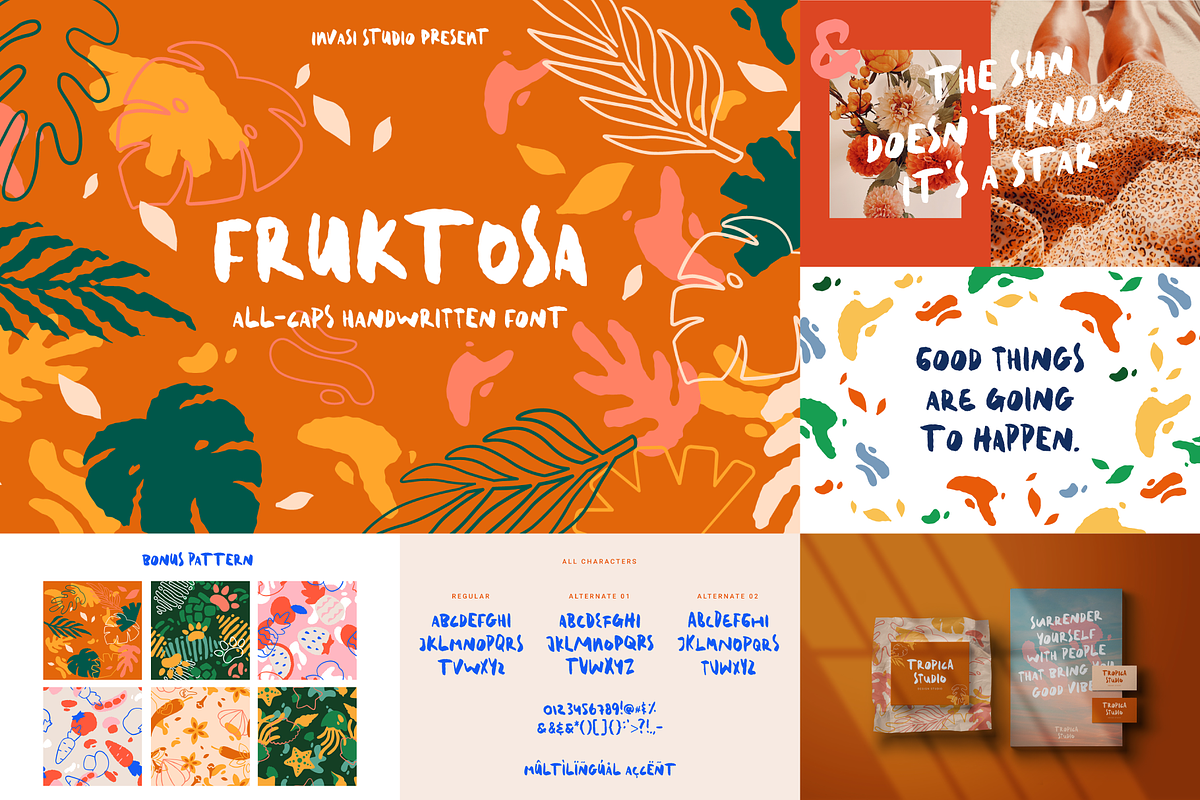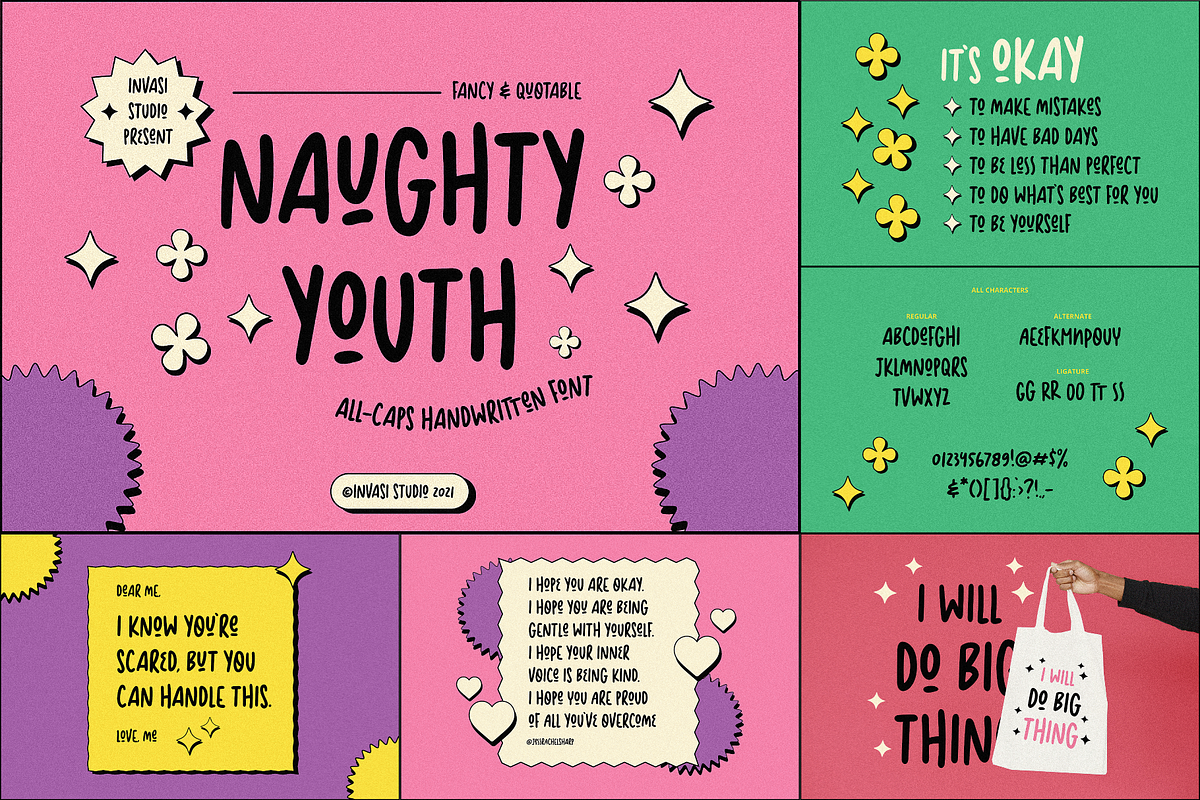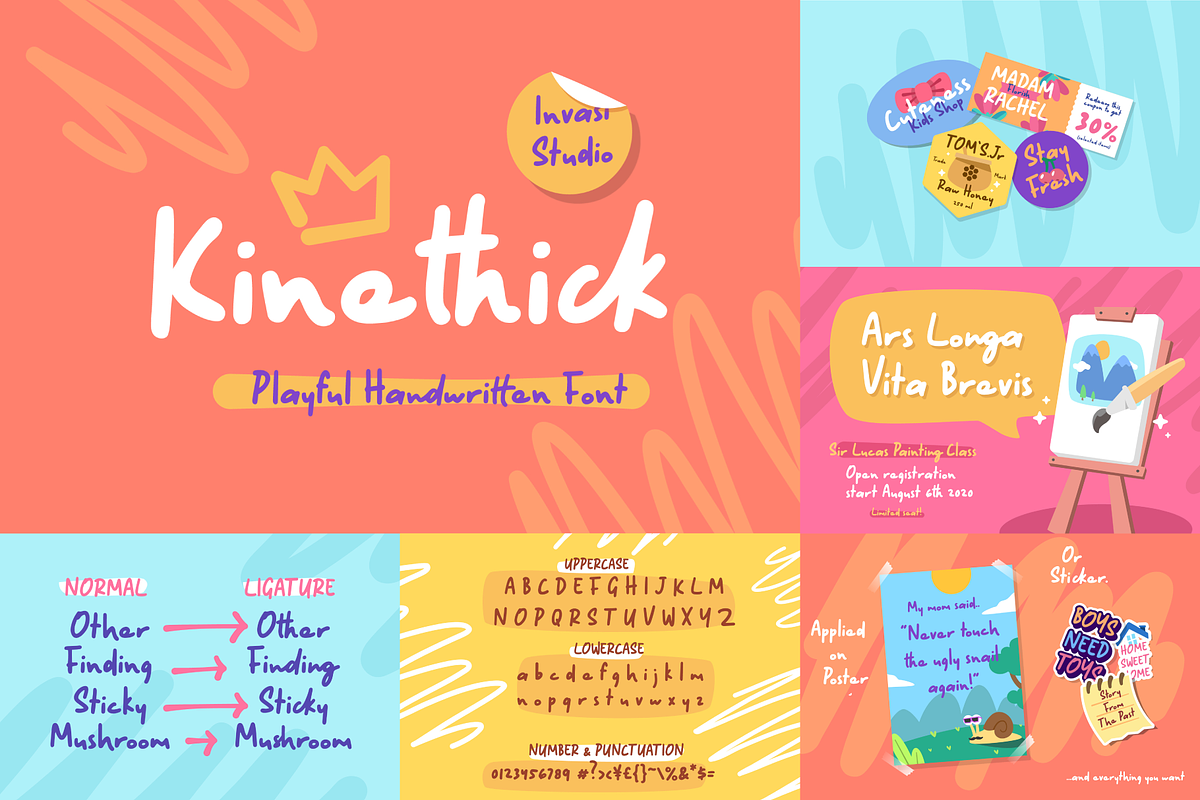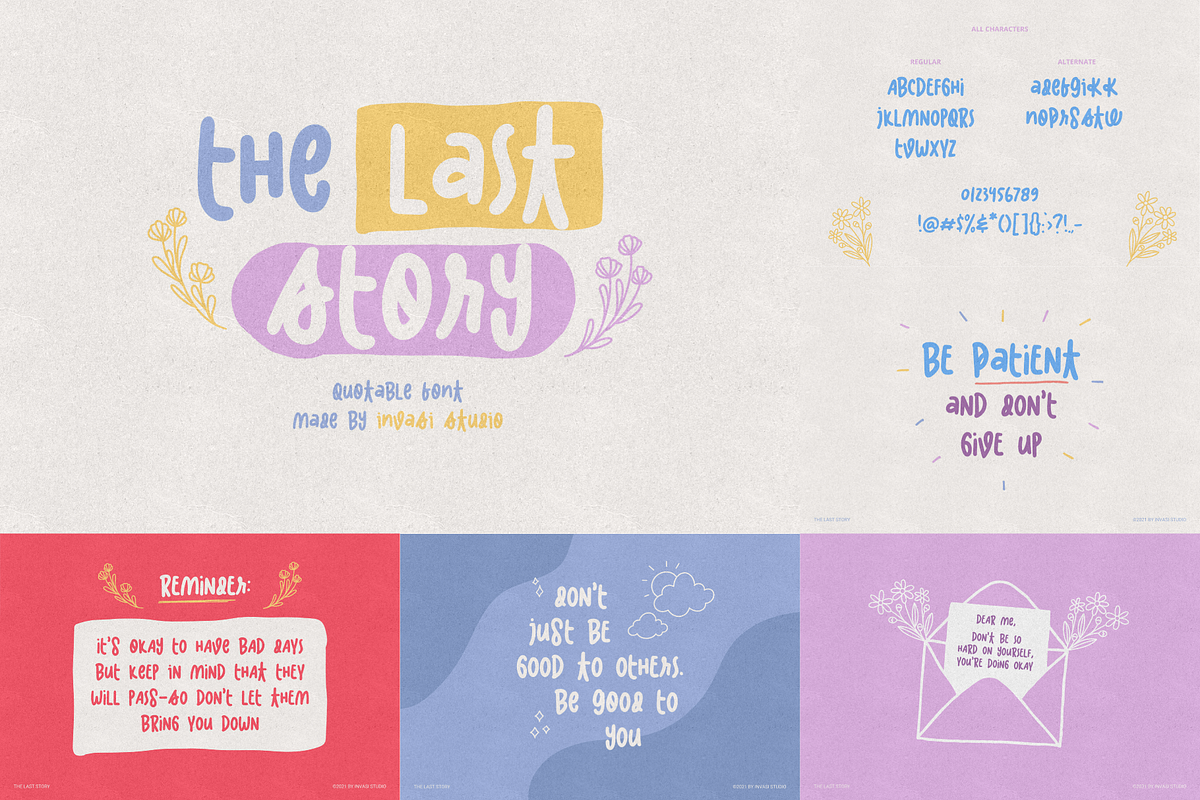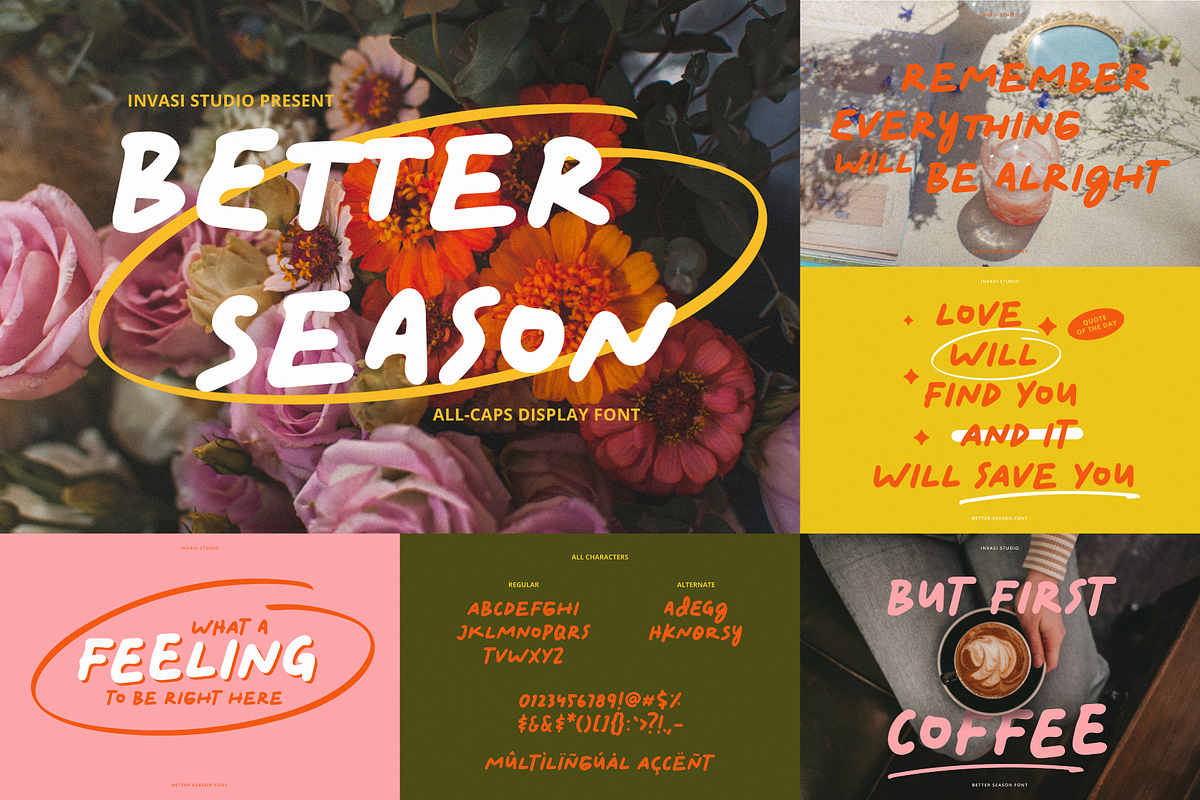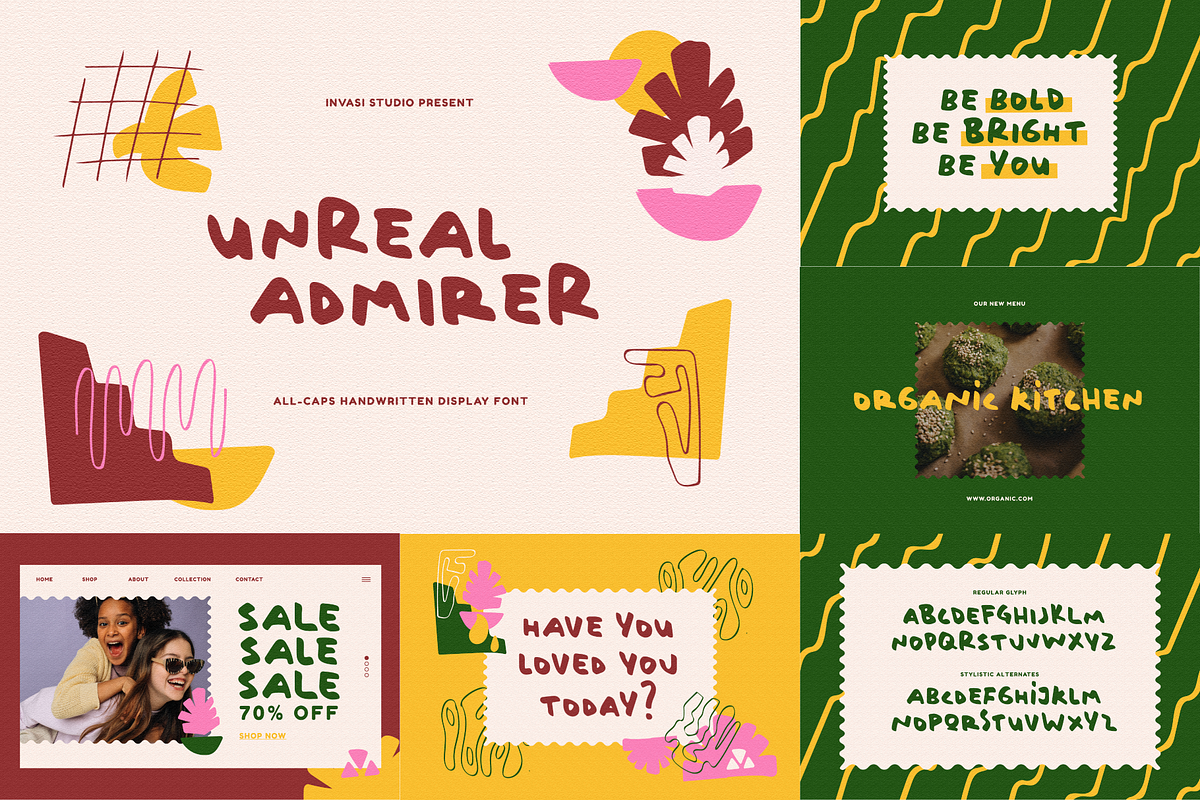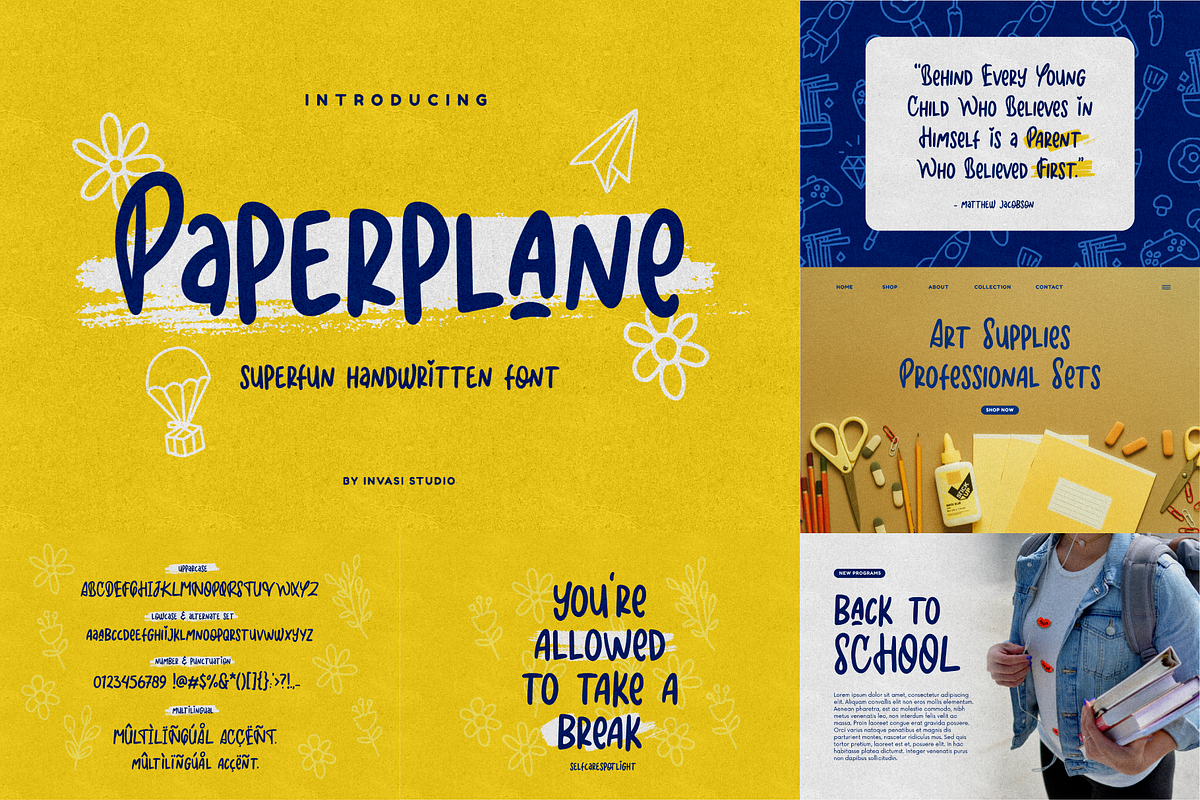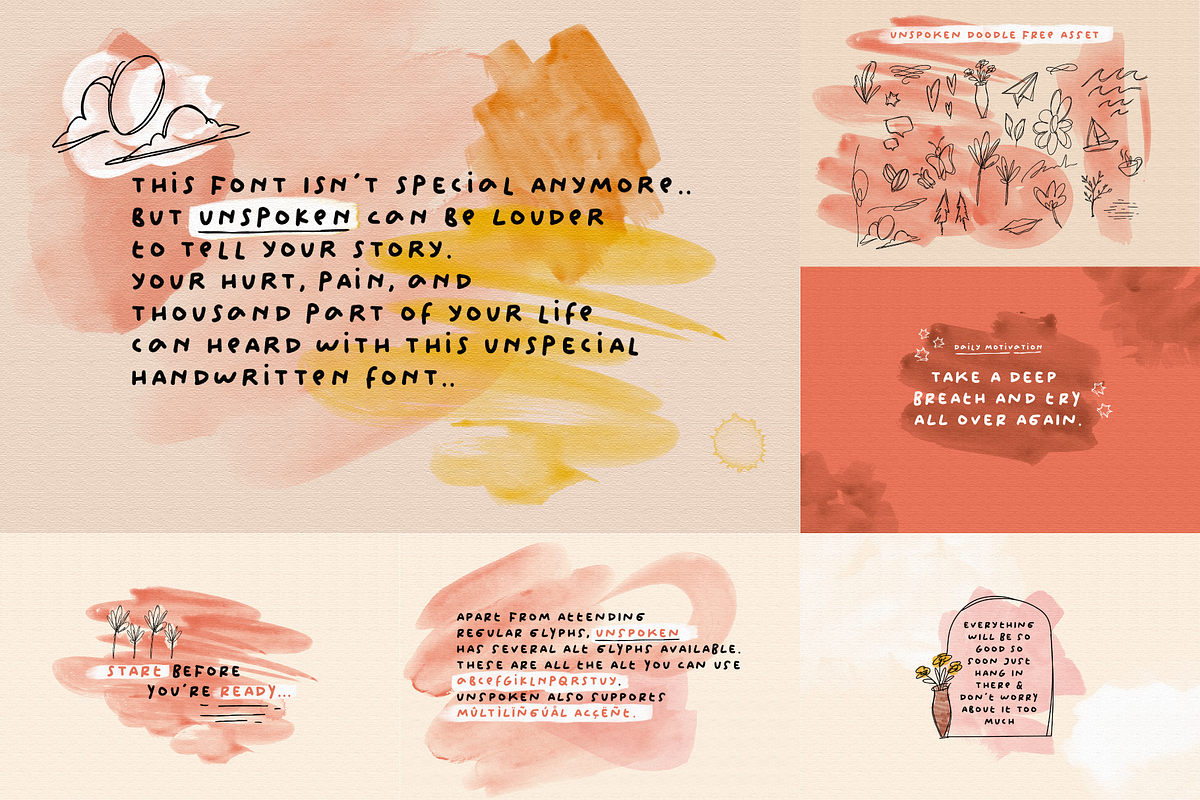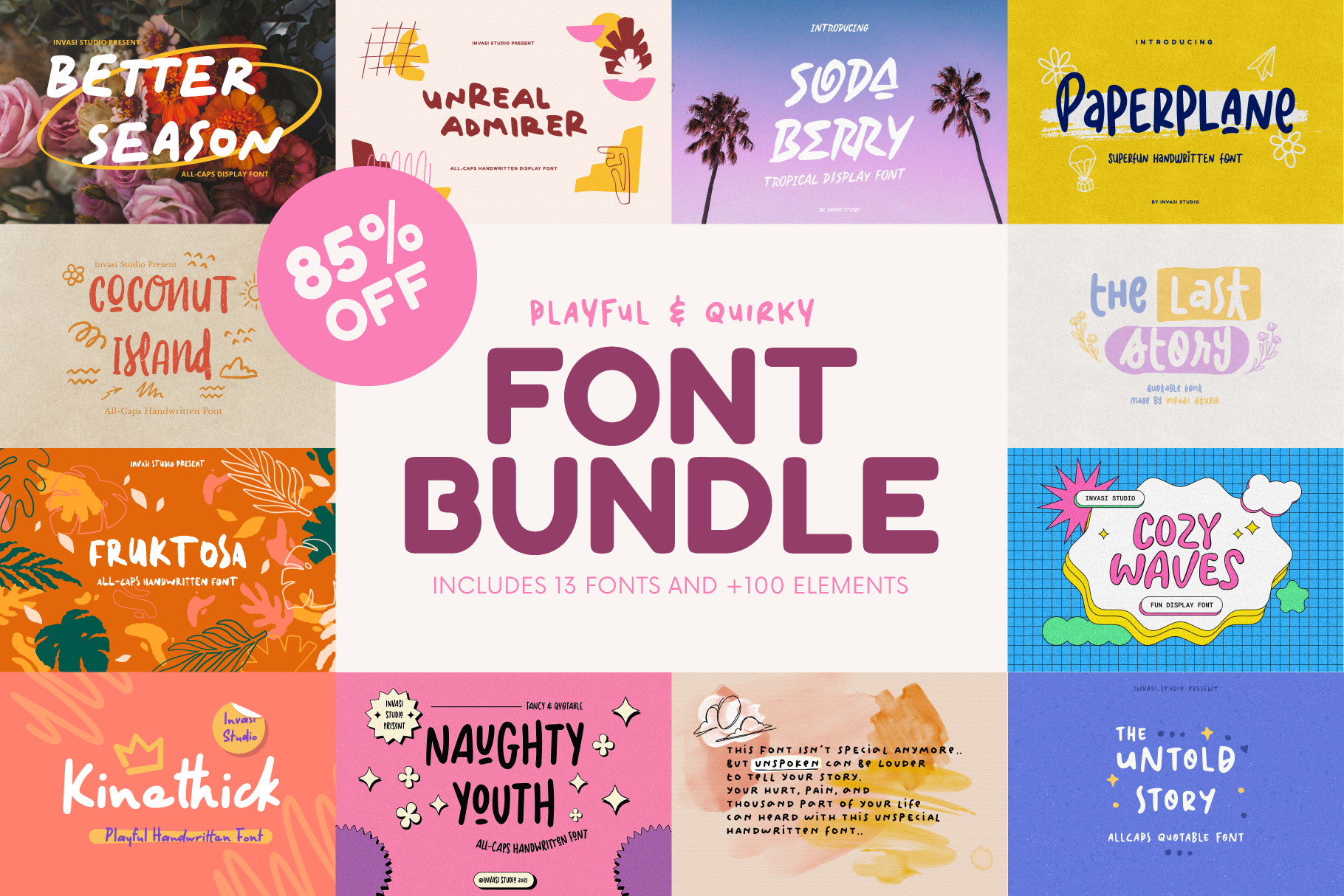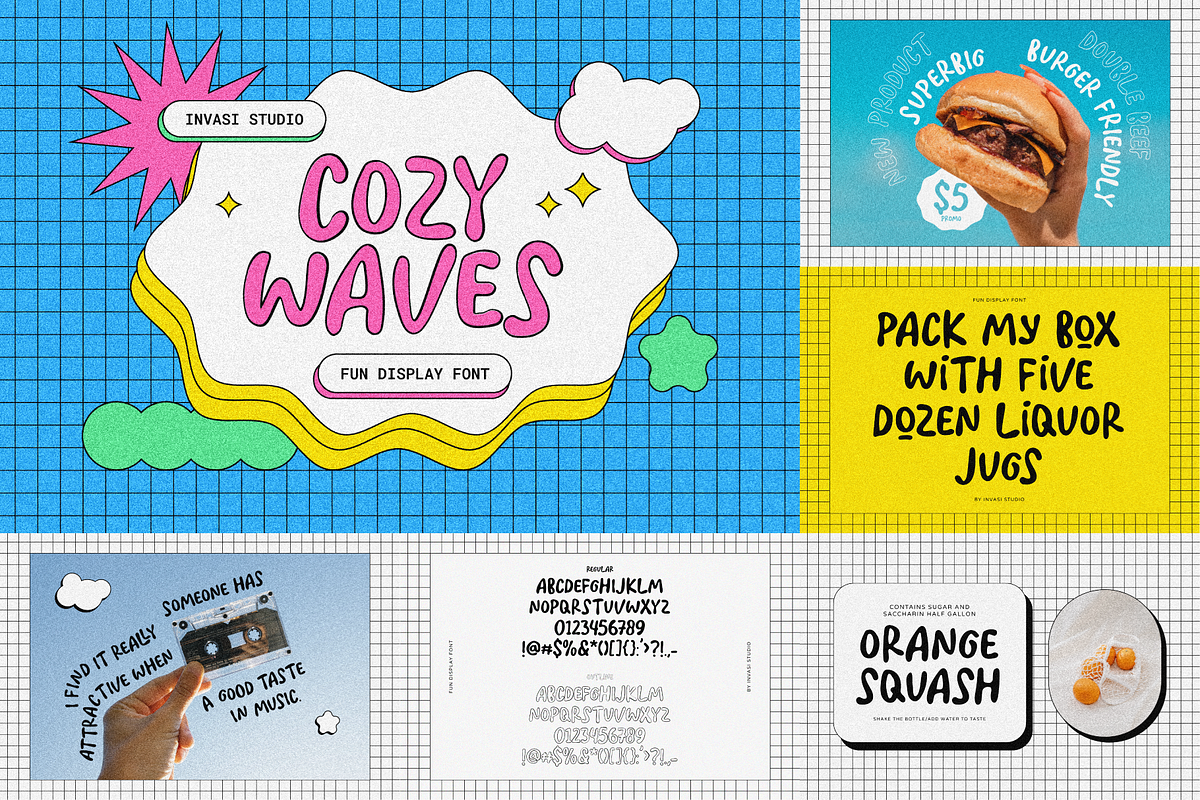
Playful Font Bundle SALE!!
Playful & Quirky Font Bundle Collection, This bundle includes a handpicked selection of fonts, perfect for crafters!
12 FONTS INCLUDED: